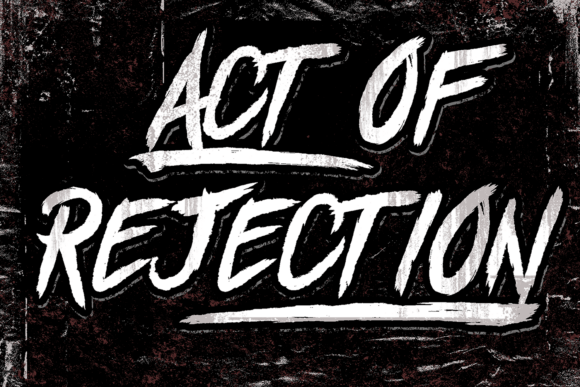
Introducing Act of Rejection Font: Elevate Your Designs with a Unique Script Font
In the world of typography, a font can make or break a design. It’s the foundation upon which your creative ideas are built, and the right choice can elevate your project to new heights. If you’re on the hunt for a font that can add a touch of elegance and sophistication to your designs, look no further than Act of Rejection Font. This incredibly unique script font is masterfully designed to become a true favorite among designers and crafters, offering a wide range of possibilities for bringing your creative ideas to life.
What Sets Act of Rejection Font Apart?
So, what makes Act of Rejection Font so special? For starters, its textured edges give it a natural, handwritten vibe that’s perfect for designs that need a personal touch. The aesthetic look of this font is also noteworthy, with a beautiful flow that makes it easy to read and visually appealing. Whether you’re working on a branding project, creating theme posters, or designing invitations, Act of Rejection Font is the perfect choice.
One of the best things about Act of Rejection Font is its versatility. This font can be used for a wide range of design projects, including:
- Branding: Create a lasting impression with your brand’s identity by using Act of Rejection Font in your logo, packaging, and marketing materials.
- Theme Posters: Add a touch of elegance to your posters with this beautiful script font, perfect for concerts, events, or advertising campaigns.
- Invitations: Make your invitations stand out with Act of Rejection Font, ideal for weddings, birthday parties, or any special occasion.
- Inspirational Quotes: Share your favorite quotes in style with this stunning font, perfect for social media graphics, posters, or prints.
- Merchandise: Give your merchandise a personal touch with Act of Rejection Font, great for designing t-shirts, mugs, or tote bags with a natural, handwritten vibe.
Why Designers and Crafters Love Act of Rejection Font
Act of Rejection Font has quickly become a favorite among designers and crafters, and for good reason. Here are just a few reasons why:
- Unique and Eye-Catching: This font is unlike anything you’ve seen before, making it perfect for designers who want to stand out from the crowd.
- Easily Readable: Despite its unique texture and aesthetic, Act of Rejection Font is easy to read, making it perfect for designs that require a lot of text.
- High-Quality Design: This font is masterfully designed, with attention to detail and a focus on quality that you won’t find in every font.
Tips for Using Act of Rejection Font
To get the most out of Act of Rejection Font, here are a few tips to keep in mind:
- Experiment with Sizes: This font looks great in a variety of sizes, so don’t be afraid to experiment to find the perfect fit for your design.
- Pair it with Other Fonts: Act of Rejection Font pairs well with a range of other fonts, so try combining it with different styles to create a unique look.
- Use it for Headlines and Titles: This font is perfect for headlines and titles, where its textured edges and aesthetic look can really shine.
Act of Rejection Font is an incredibly unique script font that’s sure to become a favorite among designers and crafters. With its textured edges, aesthetic look, and versatility, this font is perfect for a wide range of design projects. Whether you’re working on branding, posters, invitations, or merchandise, Act of Rejection Font has the potential to bring your creative ideas to the highest level. So why wait? Give Act of Rejection Font a try today and see the difference it can make in your designs!